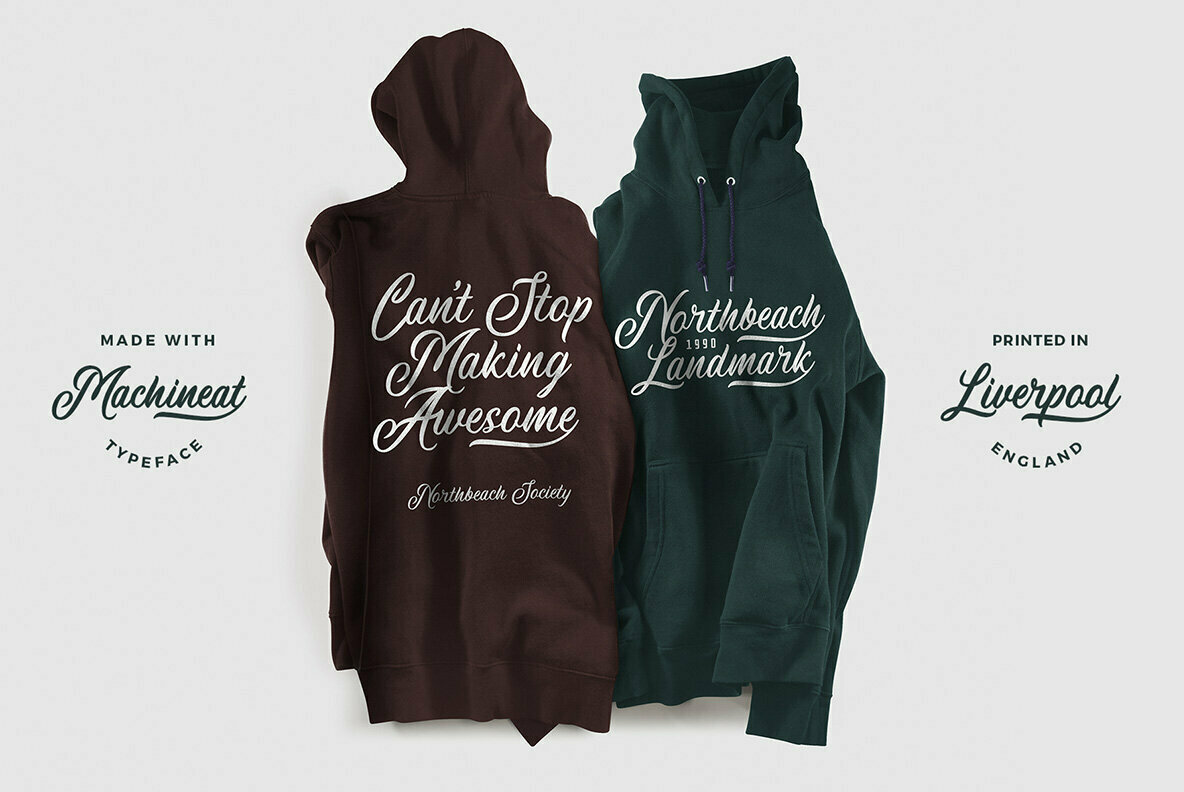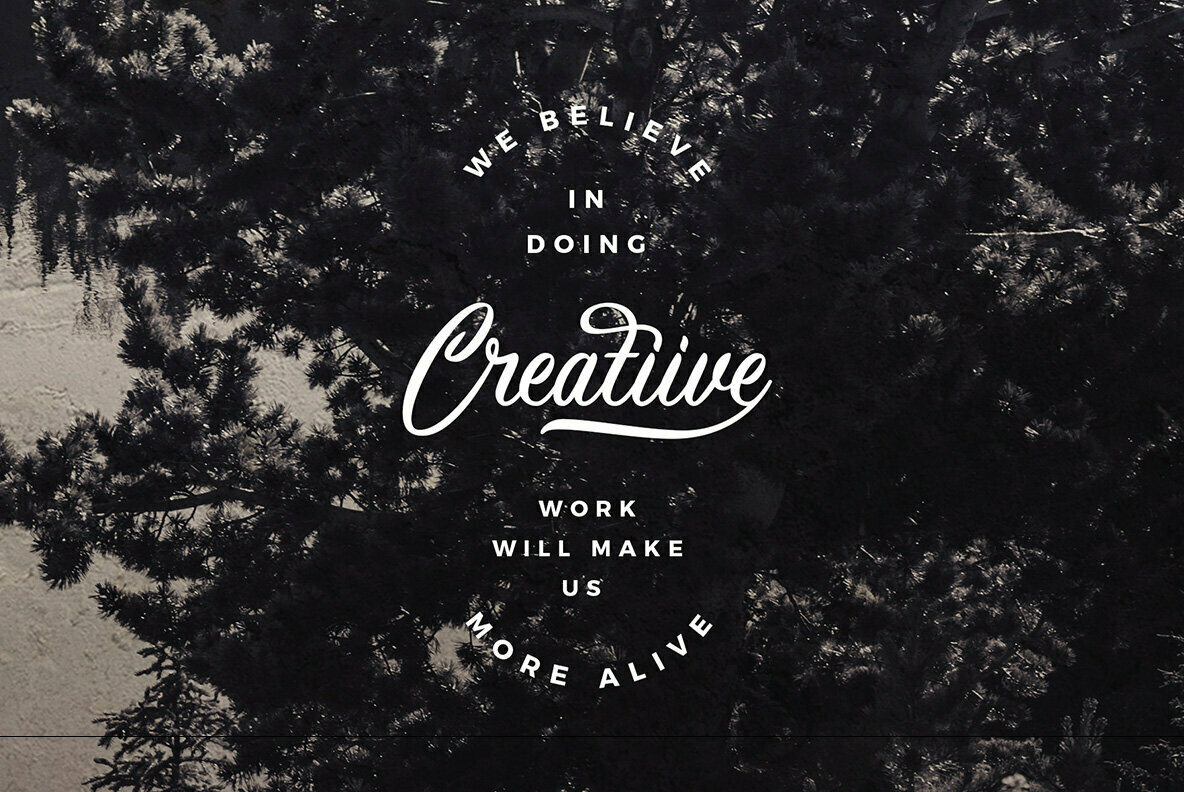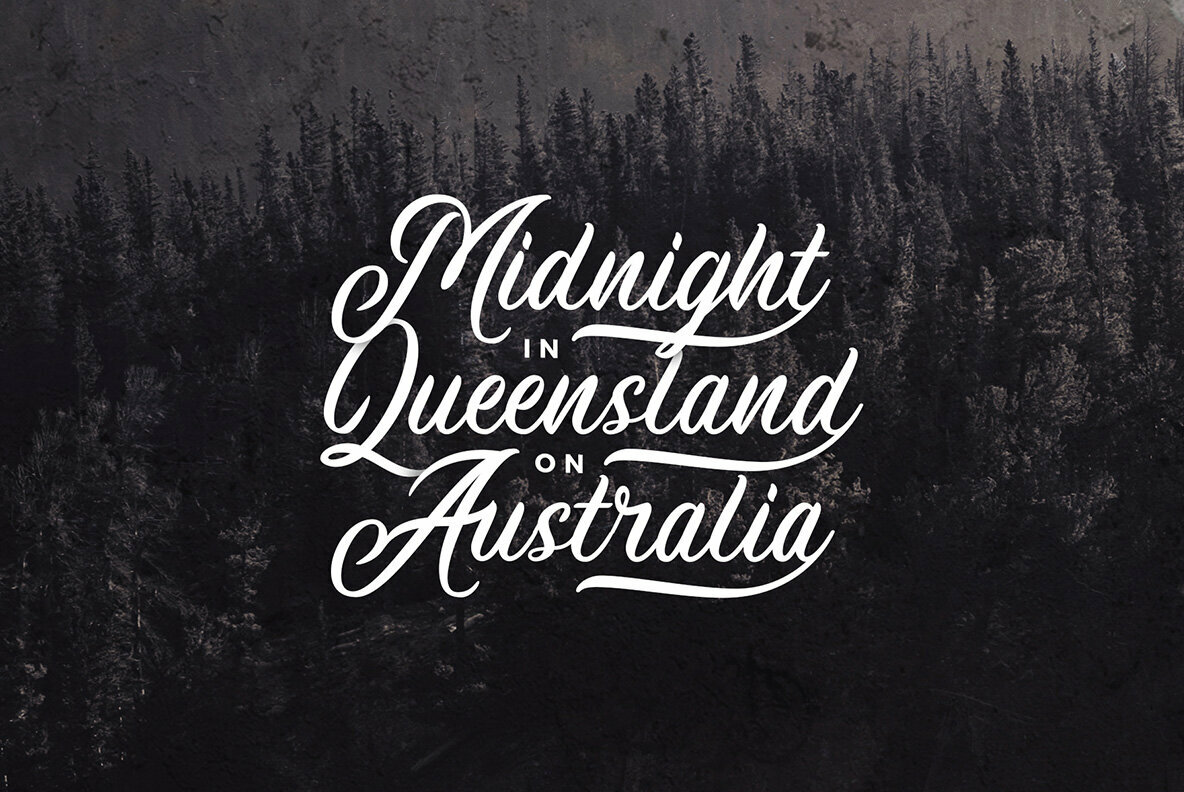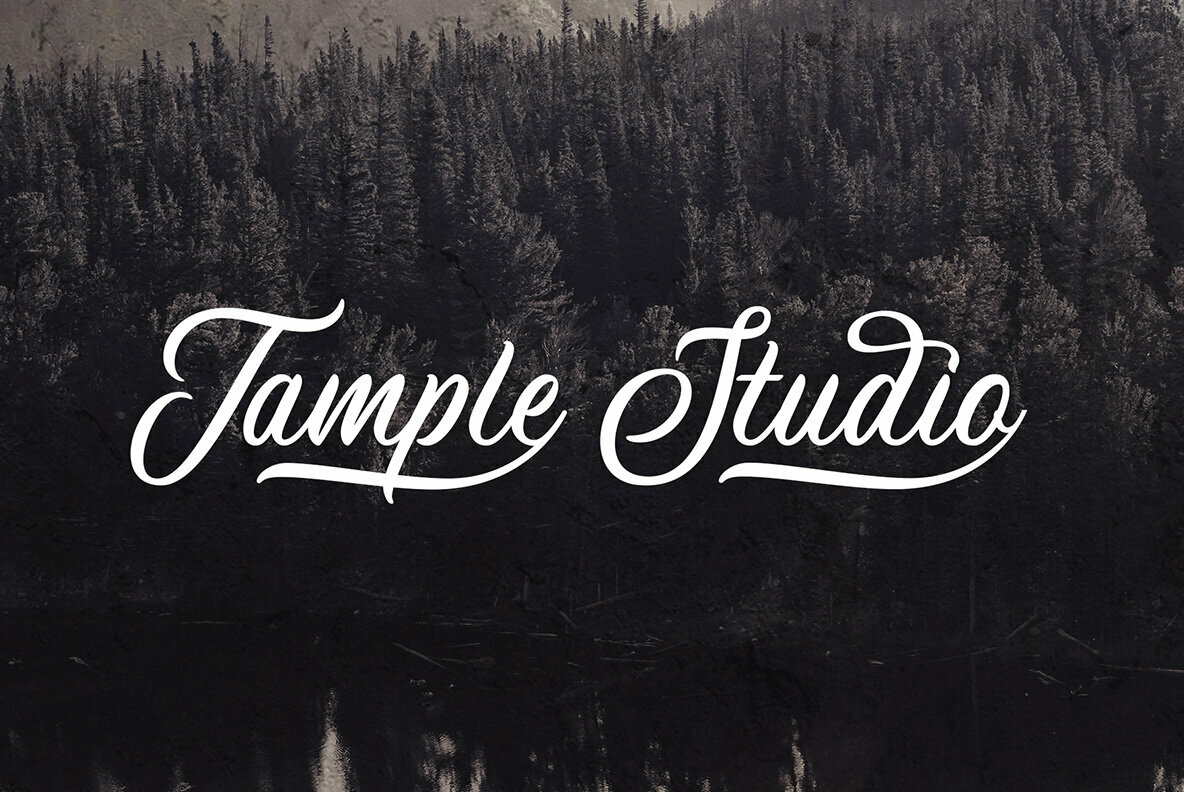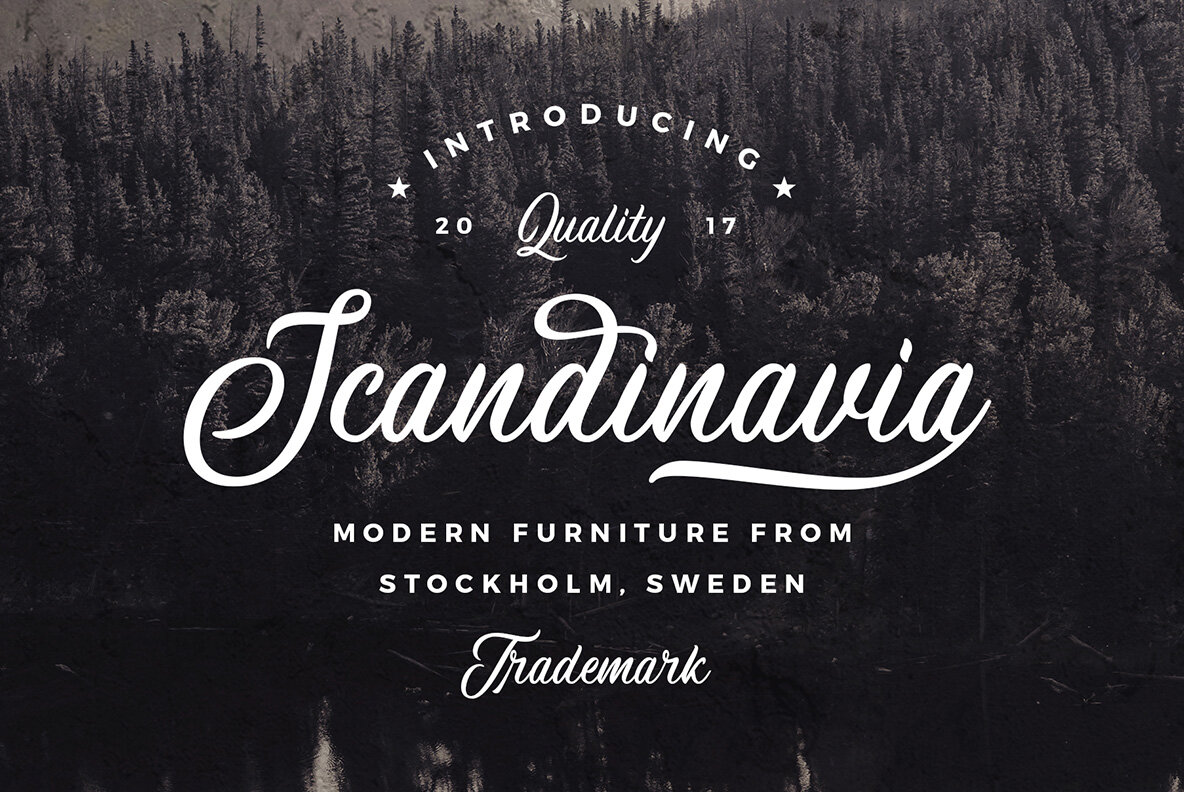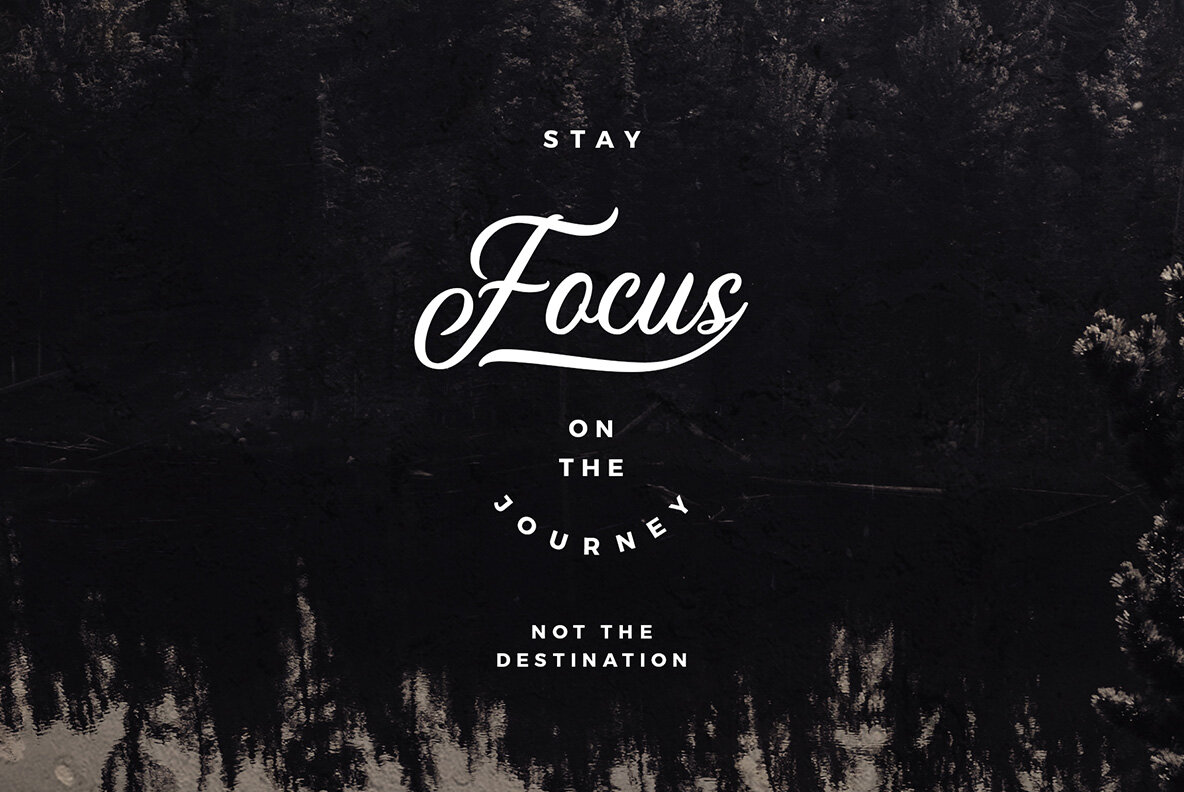
Machineat Font
Machineat is truly inspired by traditional handpainted sign style, with the natural flow and handmade taste this typeface is ready to use for your projects such as Logotype, Letterhead, Poster, Apparel Design, Label, Advertisements, Product designs, Mural, and etc.
Machineat comes with 2 styles Regular and Bold also with uppercase, lowercase, numerals, punctuations, common ligatures and also alternates swash. This typeface is a good choice for your project.